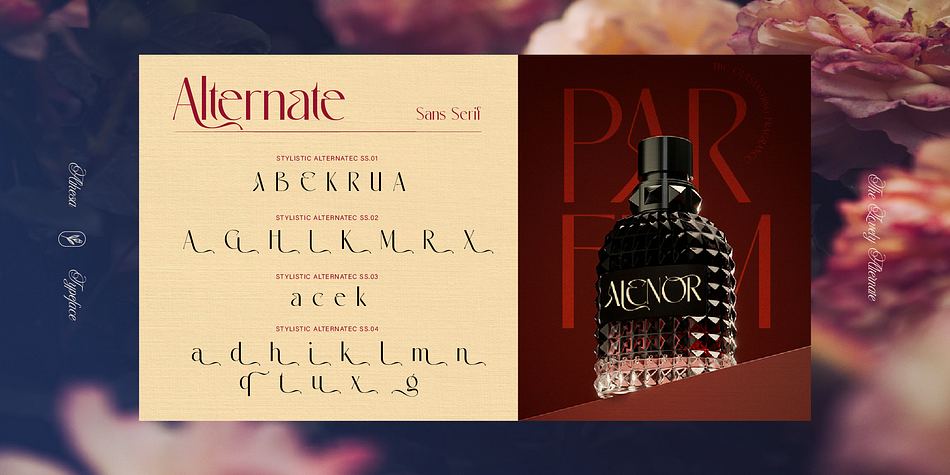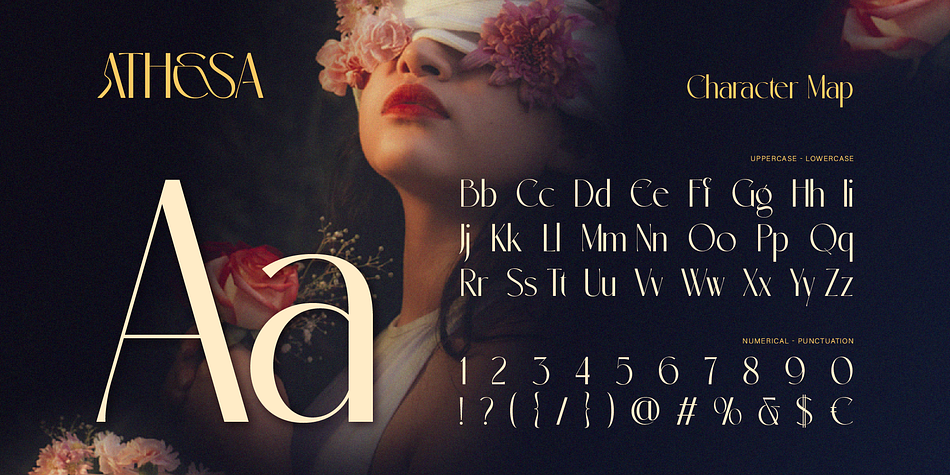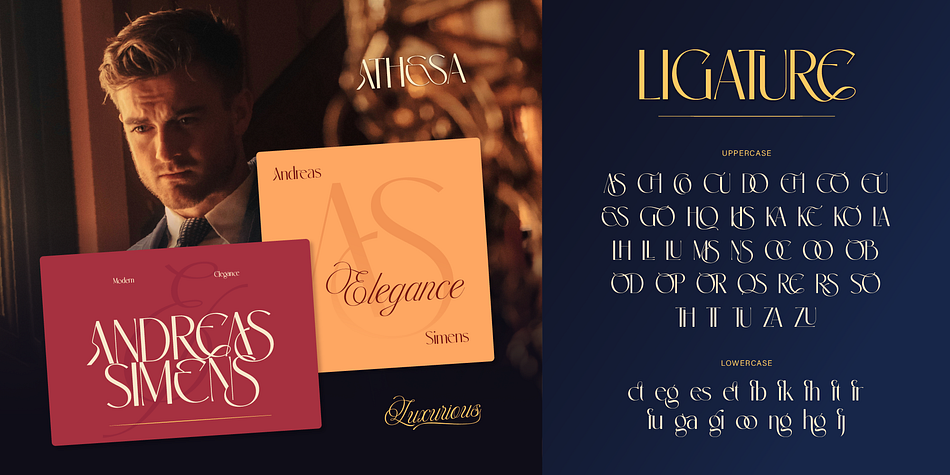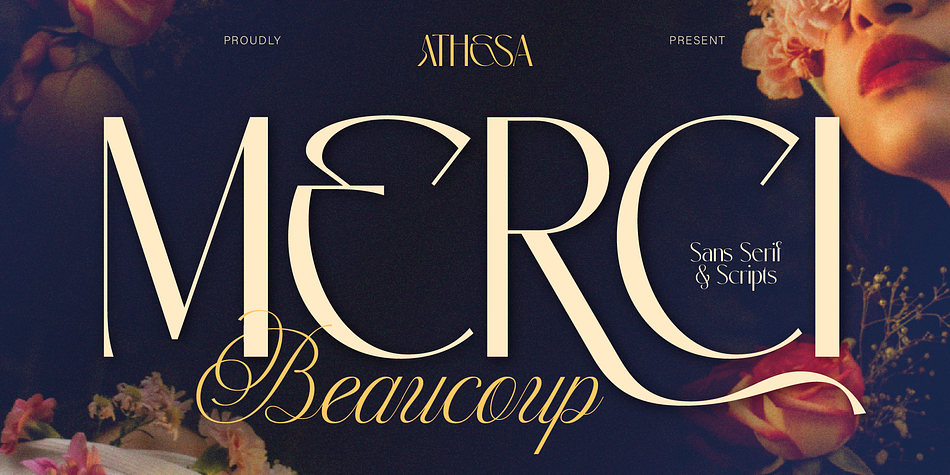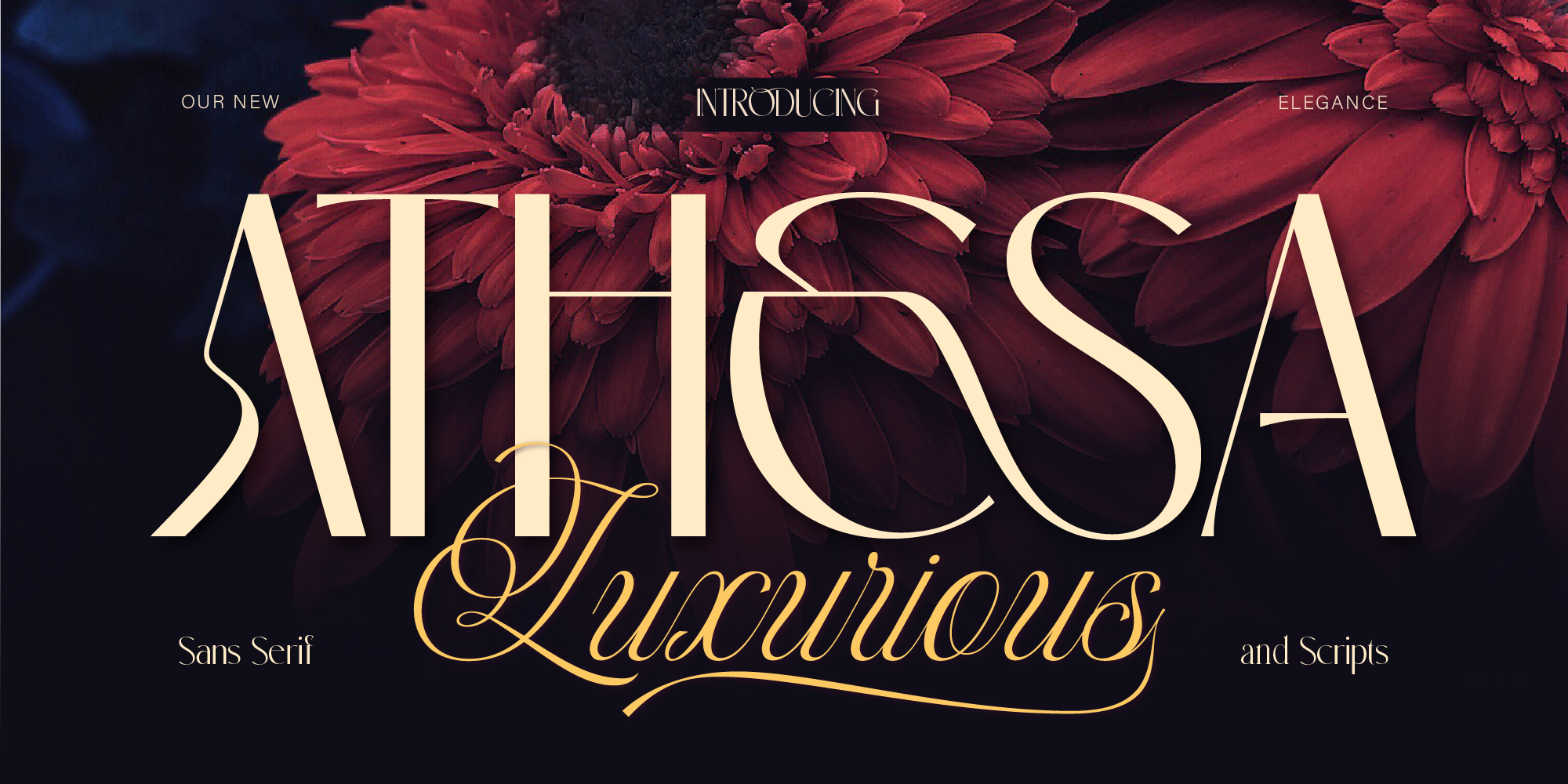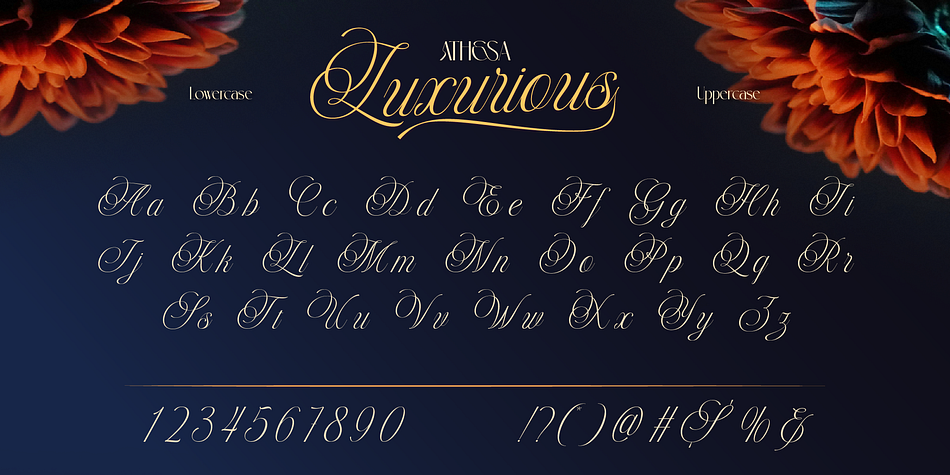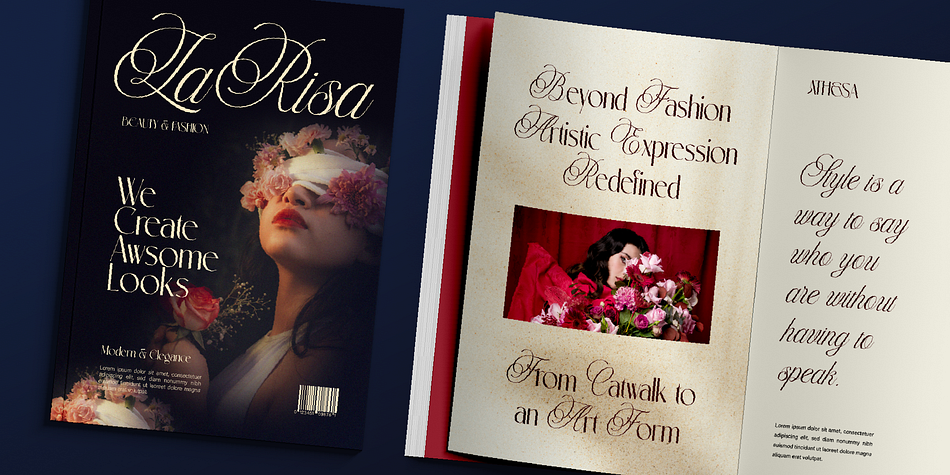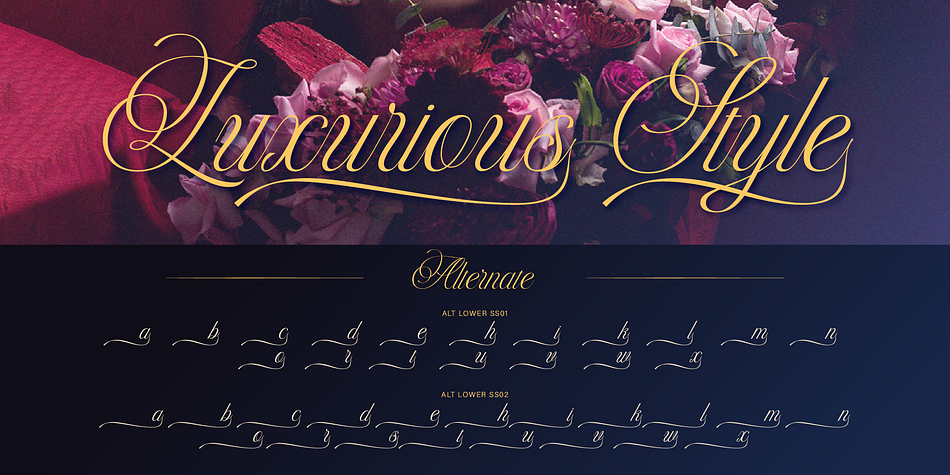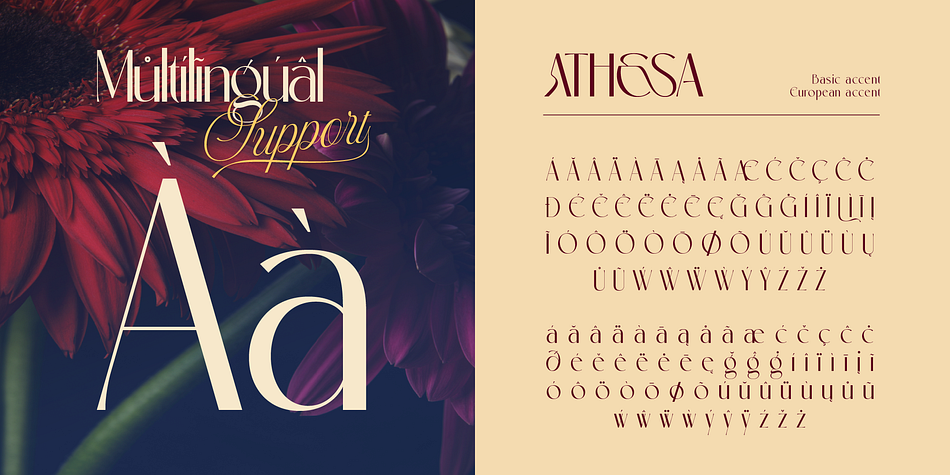
Athesa Luxurious
Designed by Eric Kurniawan, Athesa Luxurious is a display serif font family. This typeface has two styles and was published by Burntilldead.
Introducing Athesa Luxurious, our elegant, classy and glamour font duo. Where a modern sans serif meets a romantic, feminine script, creating a beautiful and harmonious visual contrast. This font is perfect for those who seeking luxury, elegance and timeless beuaty. Perfecr for branding for high-end fashion, wedding invitations, product packaging, or editorial designs, Athesa Luxurious offers the perfect balance of style and personality. With its stylish ligatures and alternates, every letter flows with purpose and poise.
- Number
- Punctuation
- Alternates
- Athesa Luxurious Characters Map